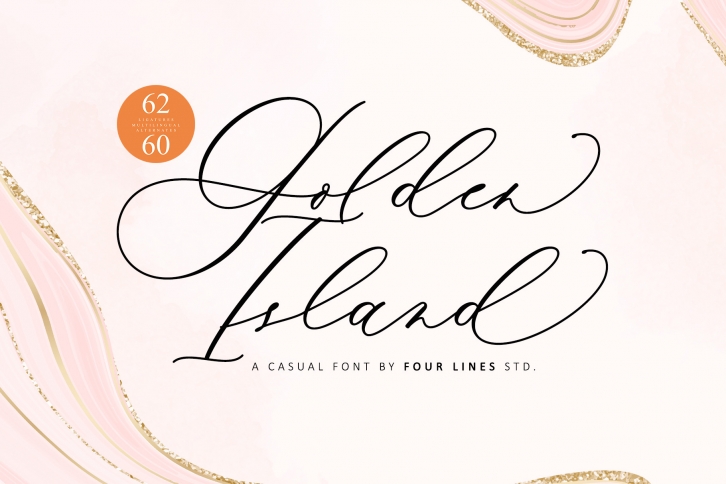
Golden Island is a delicate, elegant and flowing script font. It has beautiful and well balanced characters and as a result, it matches a wide pool of designs. Add it to your most creative ideas and notice how it makes them come alive!